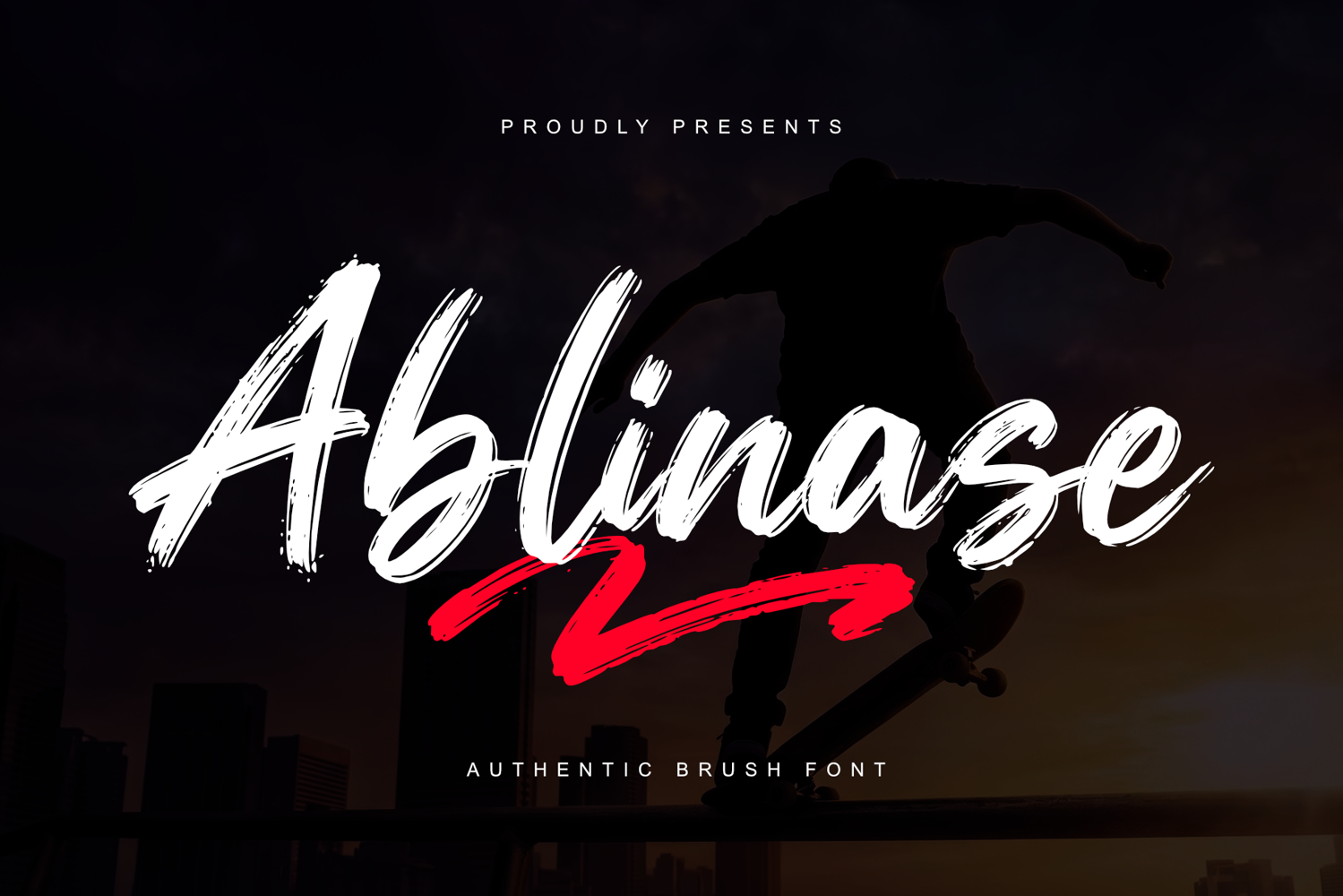
Ablinase - Authentic Brush Font
Ablinase is a bold brush font featuring strong strokes and a natural hand-painted texture. Built with a dynamic flow and rough details, it delivers a striking and authentic visual impact.
This typeface is designed to stand out in a wide range of creative projects, combining expressive letterforms with a modern and energetic style.
• Uppercase & Lowercase Characters
• Natural Brush Texture
• Dynamic Stroke Style
• Swash
Ablinase offers a strong visual presence with a handcrafted feel, making it ideal for bold and impactful typography.